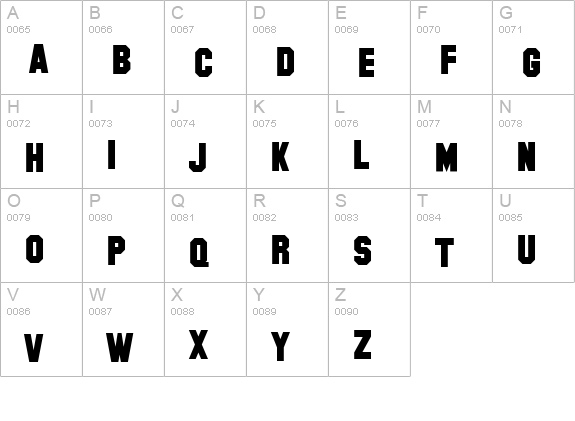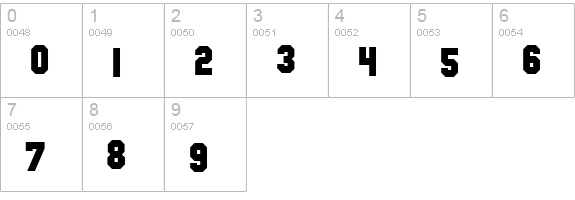
SF Hollywood Hills Bold is a strong, high-contrast variant in the SF typeface family \xE2\x80\x94 well suited to headlines, attention-grabbing titles, and strong calls-to-action.
Introducing SF Hollywood Hills Bold font, a bold and captivating typeface that beautifully captures the essence of the iconic Hollywood Hills. This stunning font is designed to make a bold statement, effortlessly grabbing attention and adding a touch of glamour to any project. With its strong and commanding presence, SF Hollywood Hills Bold font is perfect for headlines, movie posters, album covers, and any design that requires a touch of Hollywood's allure. Its bold and powerful letterforms exude confidence and create an instant impact, making it the perfect choice for those who seek to stand out from the crowd. But what makes SF Hollywood Hills Bold font truly exceptional is the fact that it is freely available to download at FontsMarket.com. Yes, you read that right – this incredible font can be yours without spending a dime. Whether you're a professional designer, a student, or simply a font enthusiast, this free download allows you to access the Hollywood Hills glamour without breaking the bank. With its extensive character set, SF Hollywood Hills Bold font offers versatility and flexibility, allowing you to express your creativity and bring your design visions to life. Its clean and crisp lines ensure legibility, even at smaller sizes, making it suitable for both print and digital applications. So why wait? Download SF Hollywood Hills Bold font today from FontsMarket.com and get ready to add a touch of Hollywood magic to your designs. Whether you're working on a branding project, a movie poster, or a creative masterpiece, this free font will elevate your work to new heights. Don't miss out on this incredible opportunity to bring the glitz and glamour of the Hollywood Hills to your designs.